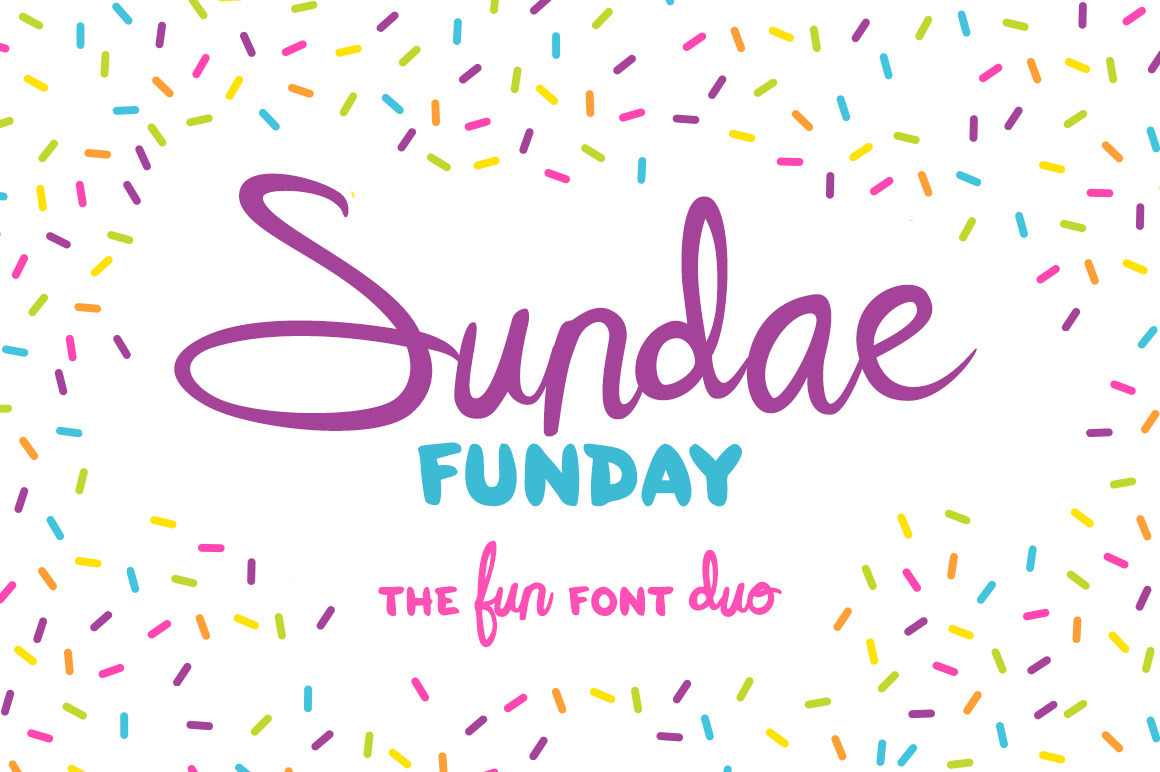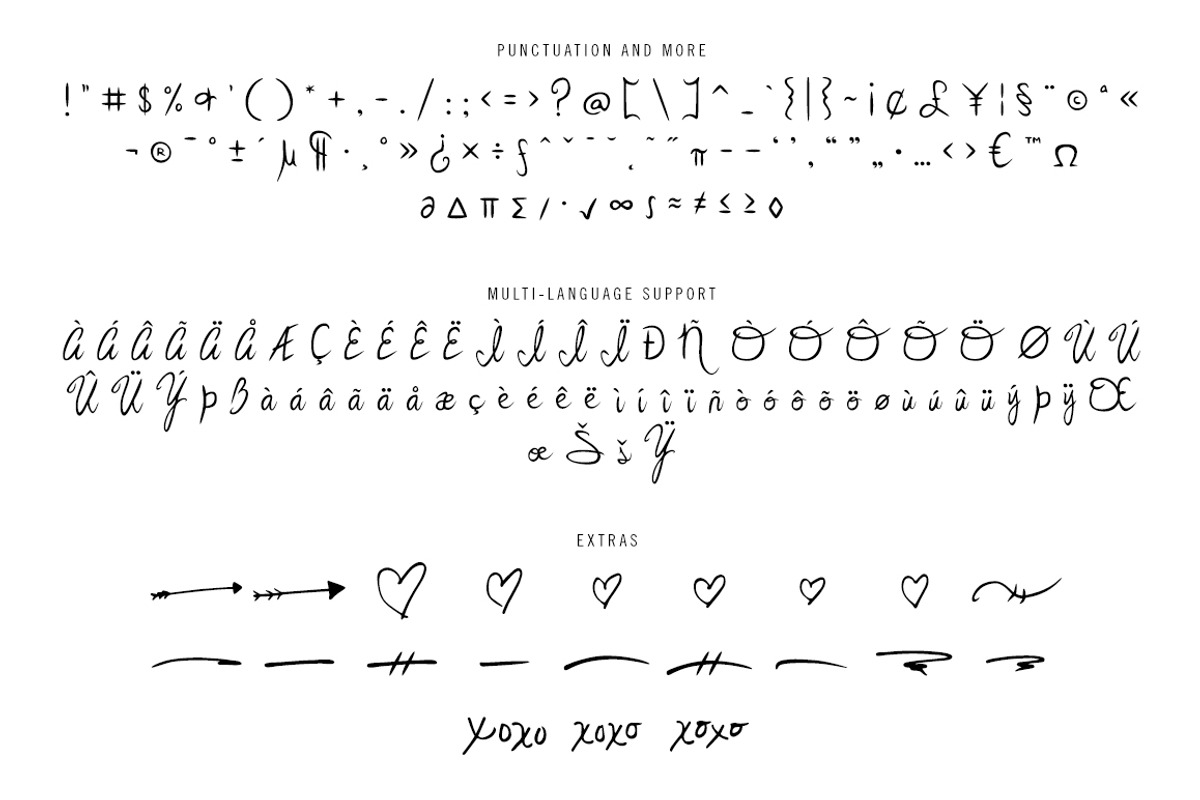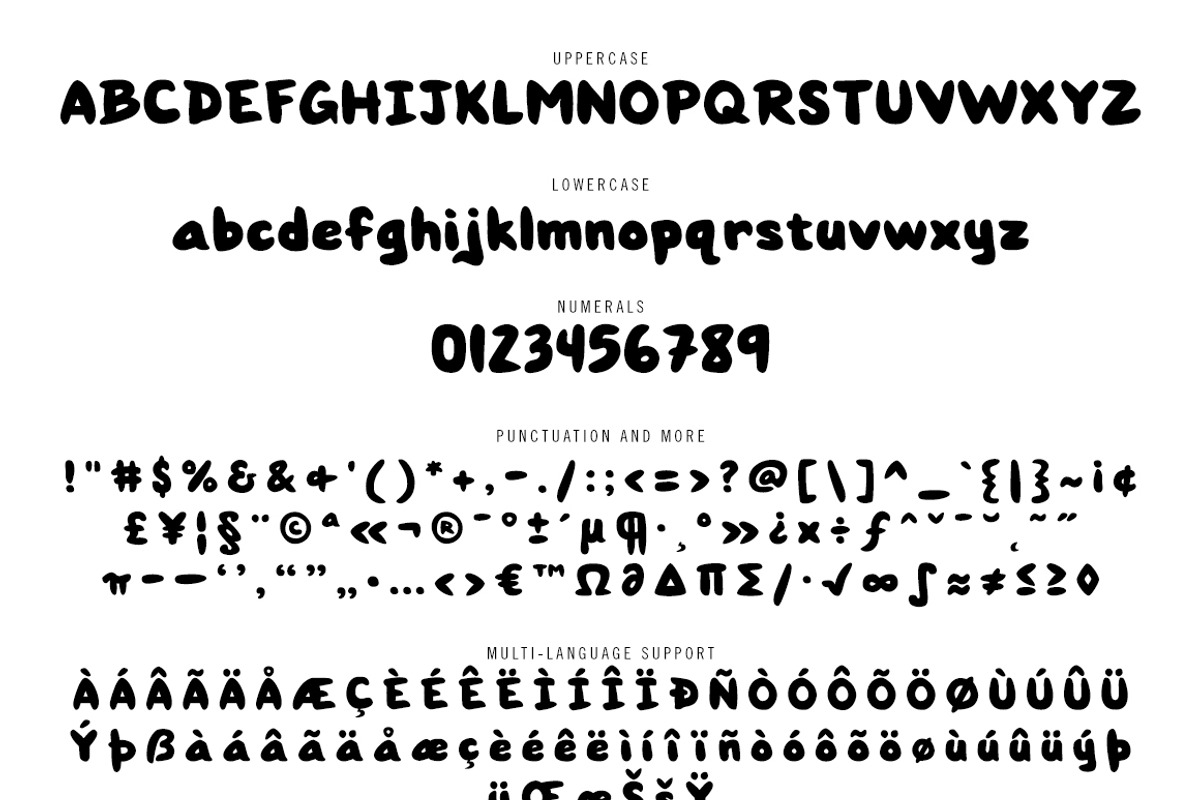
Sundae Funday Font Family
The Sundae Funday fonts make it easy to create fun type/lettering design fast! This pack contains a fresh and playful font duo with extras!
The fonts are perfect for posters, packaging, merchandise, social media posts, and greeting cards (especially birthday cards!).
Sundae Funday Script - includes, two sets of uppercase and lowercase letters, ligatures, international support, punctuation, and a wide variety of extra characters.
Sundae Funday Script Bold - includes, two sets of uppercase and lowercase letters, ligatures, international support, punctuation, and a wide variety of extra characters.
Sundae Funday Display - full set of uppercase and lowercase letters, international support, punctuation, and a wide variety of extra characters.
Sundae Funday Decorative - includes hand drawn arrows, hearts, "xoxo", and swashes